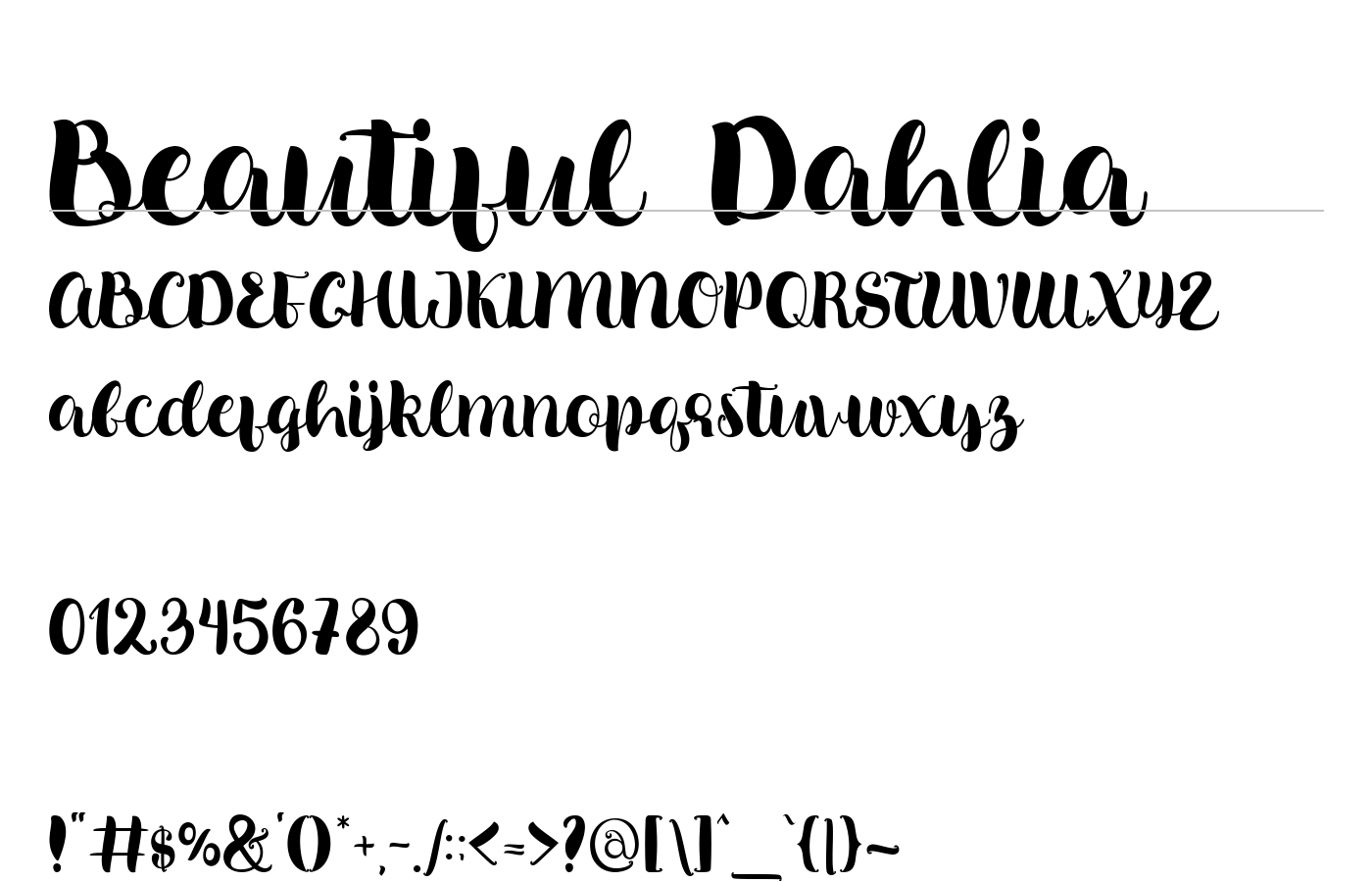
Beautiful Dahlia is a bold, hand-lettered script font with a playful and elegant feel. Its thick, rounded strokes and whimsical swashes create a warm, friendly vibe perfect for creative branding, invitations, and decorative headlines where a charming, personal touch is desired. This font stands out in projects that benefit from a stylish yet approachable look.
Beautiful Dahlia Font
About Beautiful Dahlia Font